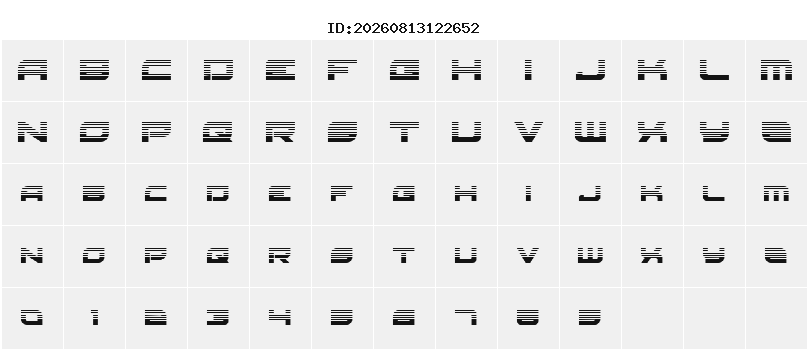
• Font Name: Red Rocket Gradient
• Full Font Name: Red Rocket Gradient Regular
About Red Rocket Gradient.ttf
Red Rocket Gradient.ttf is a modern, elegant sans-serif font designed for ultimate readability and visual harmony. Perfect for branding, headlines, web design, and print materials.